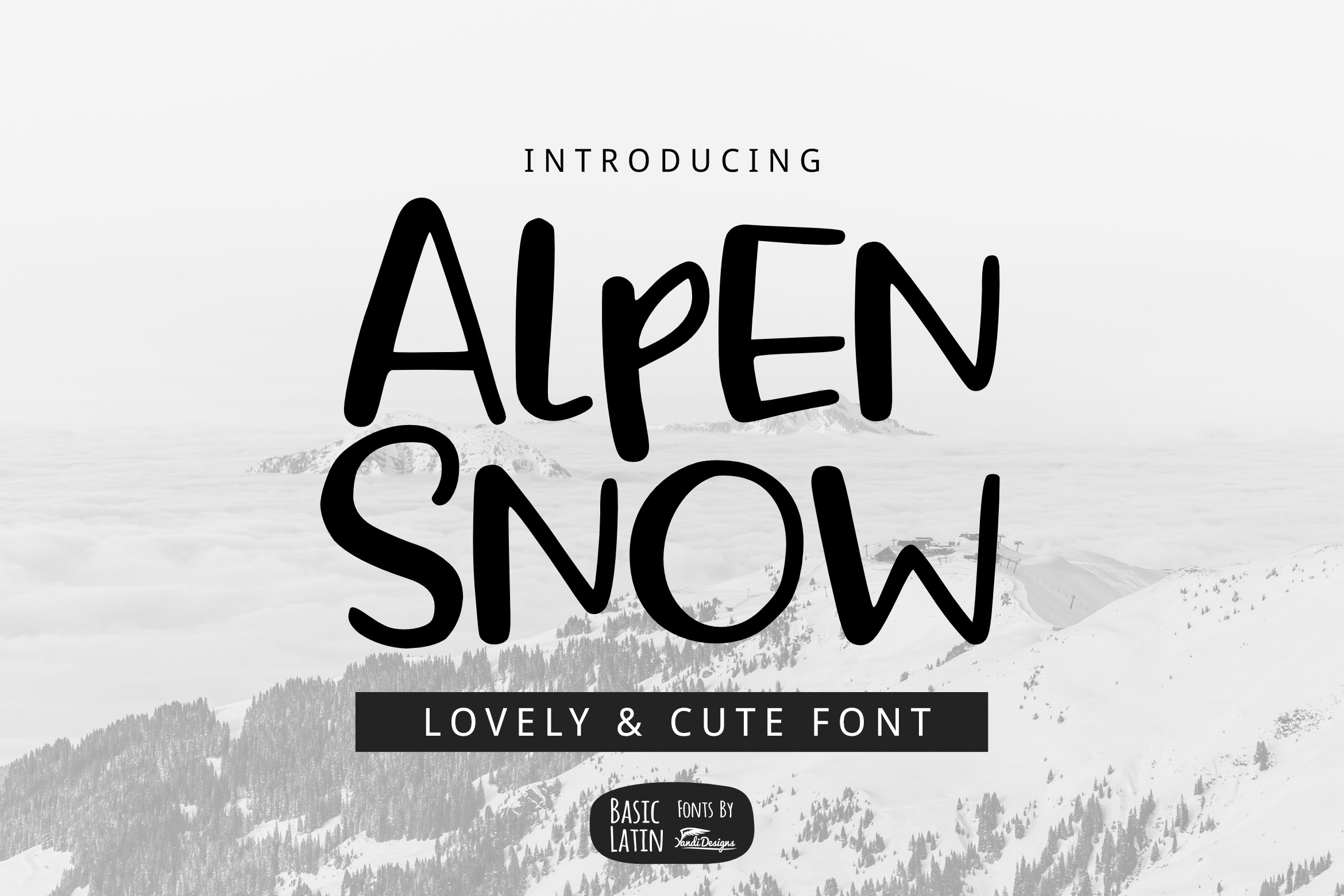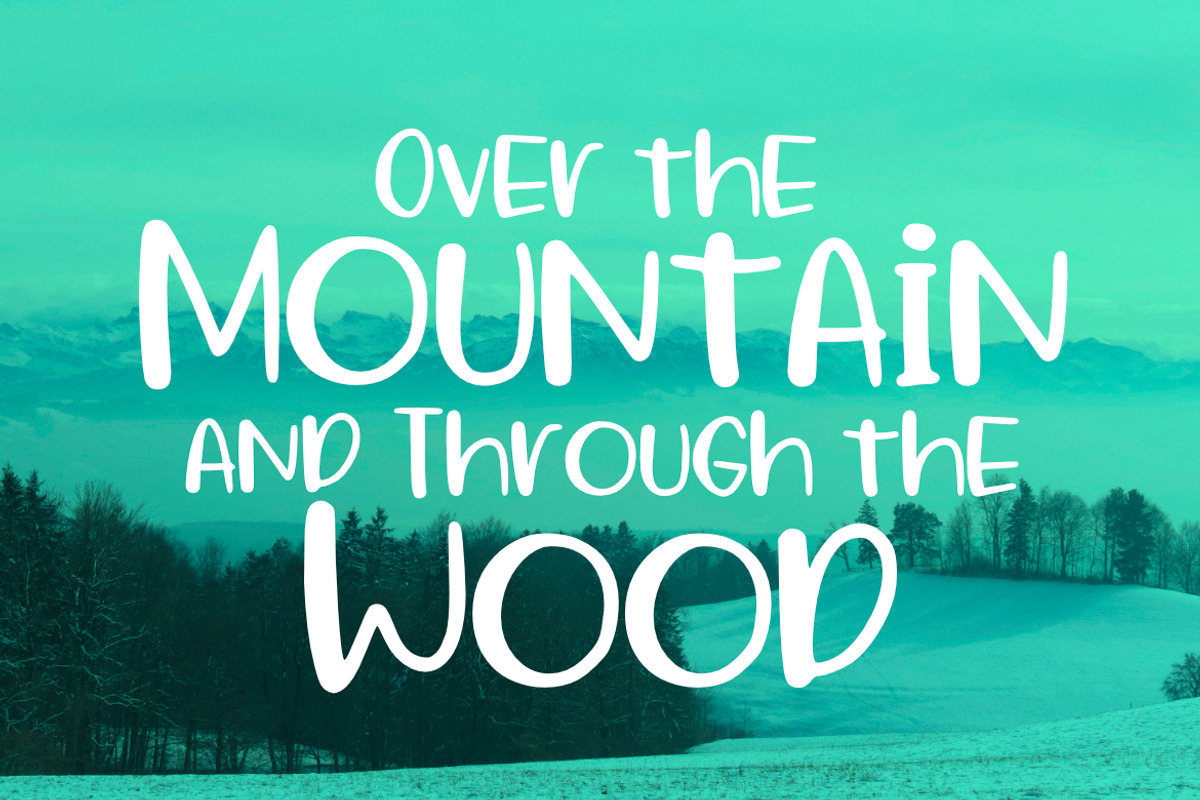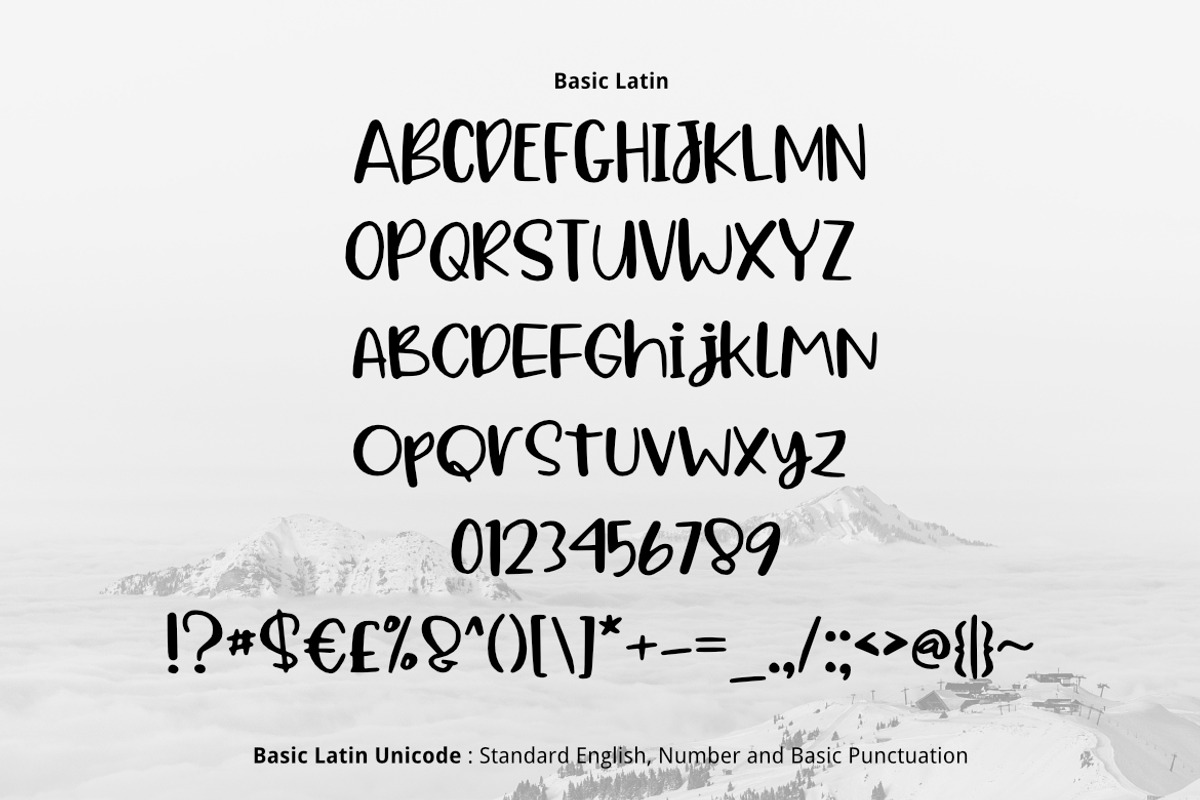
Alpen Snow Font
Alpen Snow is lovely , cute, simple, playful, multipurpose handwritten font , suitable for many project children book, quotes, logo , heading , title etc.
Basic Latin (Standard English character , number, symbol)